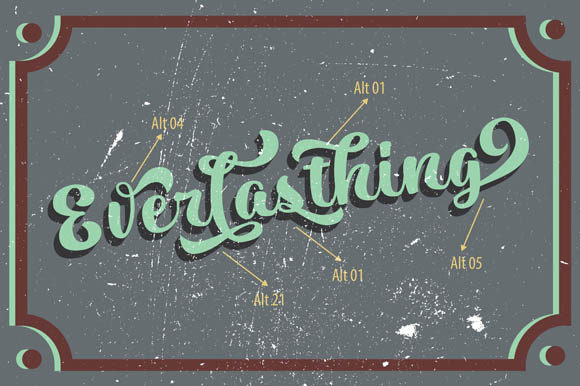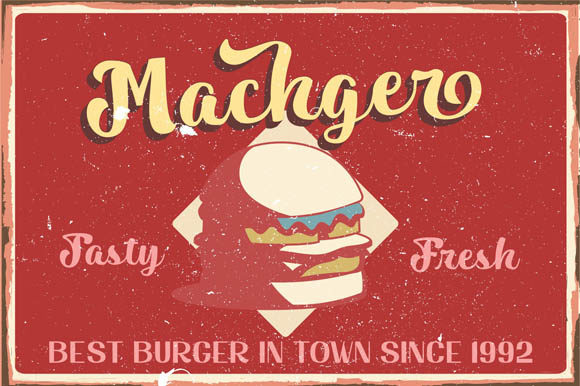
About Pilopy Font
Pilopy is a bold and distinctive script font that exudes a unique vintage charm. With the added extra extruded version, Pilopy offers even more versatility and creative possibilities for your design projects. Whether you’re working on branding, headings, logos, labels, or any other creative endeavor, Pilopy is here to elevate your work to the highest level. Here are some ways you can use Pilopy to make your designs truly stand out:
1. Branding: Create a memorable and eye-catching brand logo or wordmark using Pilopy’s bold and vintage-inspired letterforms.
2. Headings and Titles: Make a bold statement with Pilopy’s unique script for headings, titles, and headlines in various designs.
3. Packaging Design: Utilize Pilopy’s vintage look to design attractive and nostalgic packaging for products.
4. Logos: Incorporate Pilopy’s distinctive script into logos for a touch of retro elegance.
5. Labels and Stickers: Use Pilopy to design captivating labels and stickers that draw attention and evoke a vintage feel.
6. Poster Design: Design eye-catching posters with Pilopy’s bold and retro style, perfect for events, promotions, or wall art.
7. Signage: Apply Pilopy to create distinctive and attractive signage for businesses or special events.
8. Invitations and Stationery: Use Pilopy to design elegant and vintage-themed invitations, thank you cards, and stationery.
9. Apparel Design: Add Pilopy’s unique vintage flair to apparel designs like t-shirts, hoodies, and hats.
10. Website Headers: Enhance website headers and banners with Pilopy’s bold and eye-catching script.
11. Book Covers: Design book covers with Pilopy’s vintage-inspired script for a touch of classic elegance.
12. Greeting Cards: Create heartfelt and nostalgic greeting cards with Pilopy’s charming vintage look.
13. Product Branding: Use Pilopy to brand products and merchandise, giving them a distinctive and retro appeal.
14. Social Media Graphics: Create engaging social media graphics using Pilopy’s unique script, perfect for Instagram posts and Pinterest graphics.
15. Packaging Design: Utilize Pilopy’s extruded version to create three-dimensional effects on packaging and promotional materials.
16. Typography Art: Design typography art pieces with Pilopy’s vintage script, featuring inspirational quotes or phrases.
17. Crafts and DIY Projects: Incorporate Pilopy into various crafts and DIY projects for a touch of vintage charm.
18. Embossing and Engraving: Use Pilopy’s bold letterforms for embossing or engraving on materials like paper, leather, or wood.
19. Product Labels and Tags: Create vintage-inspired product labels and tags with Pilopy’s unique script.
20. Retro-Themed Designs: Embrace the vintage vibes and design retro-themed projects with Pilopy’s distinctive look.
Pilopy’s bold script and unique vintage aesthetic make it a valuable asset for a wide range of design projects. Whether you’re aiming for a nostalgic touch or a standout logo, Pilopy’s versatility and character will elevate your work to the highest level, creating memorable and impactful designs.